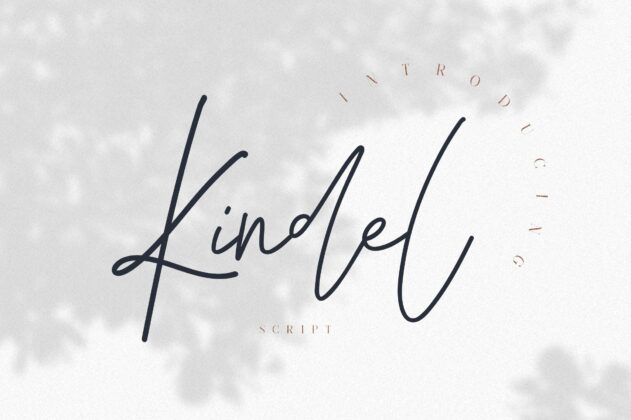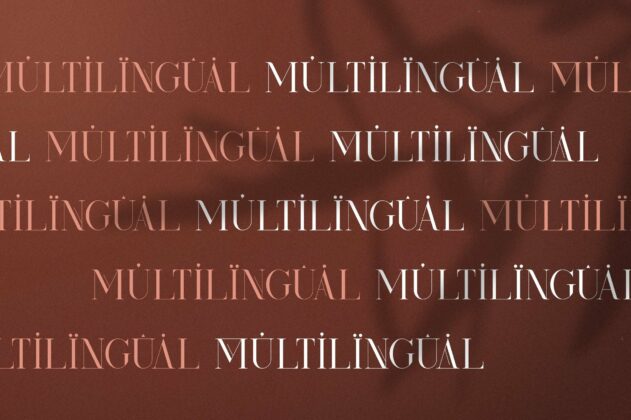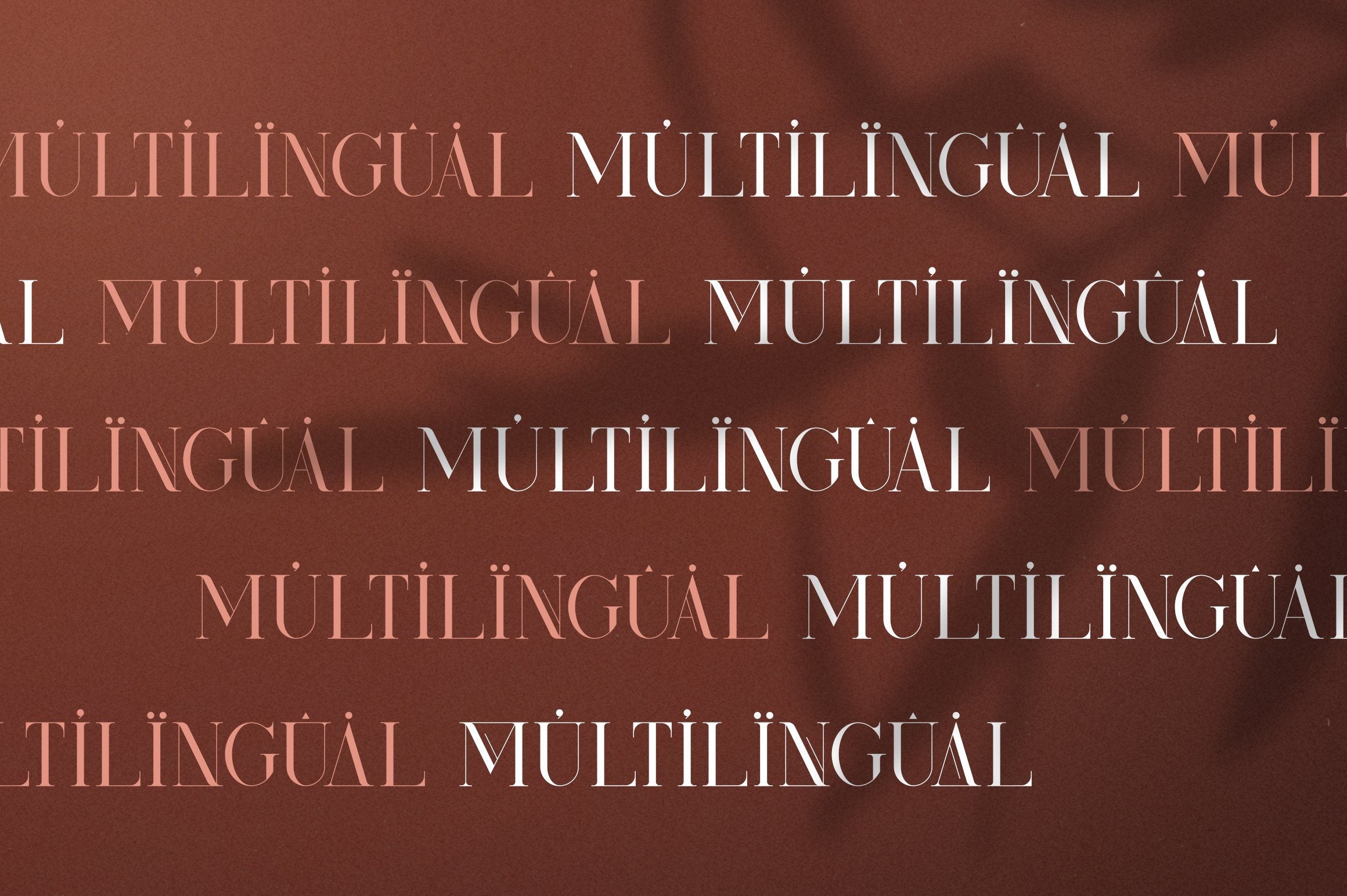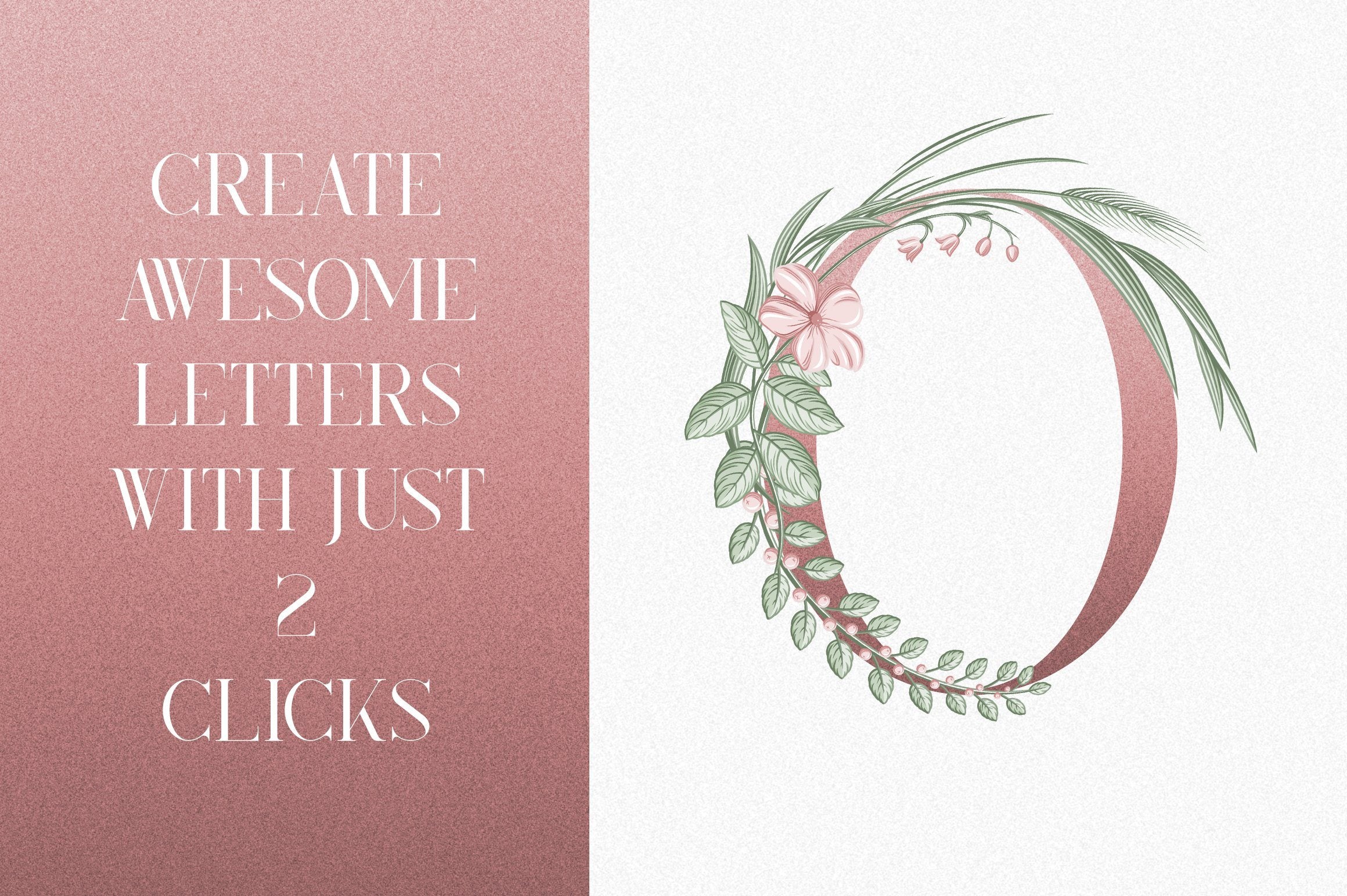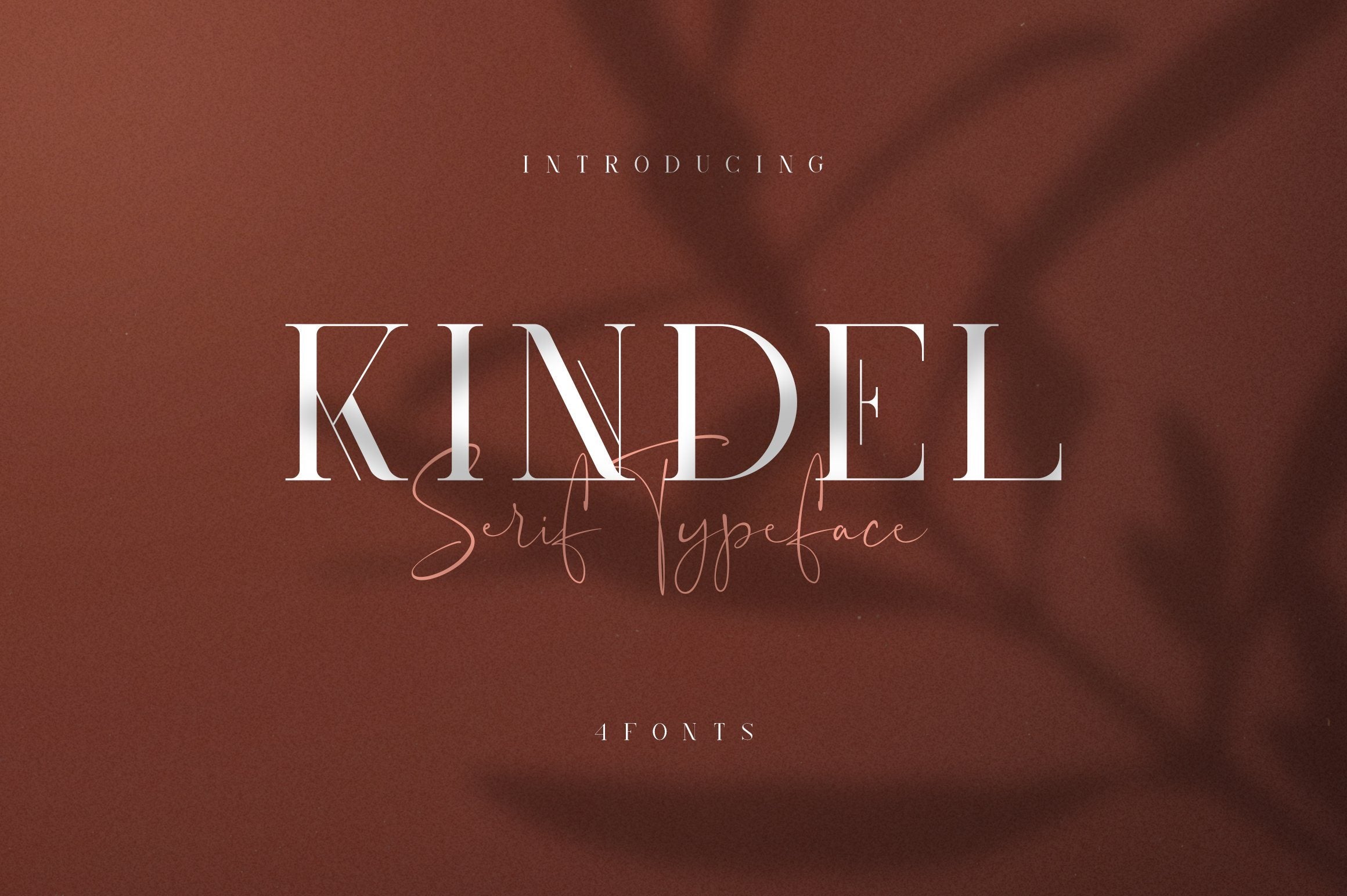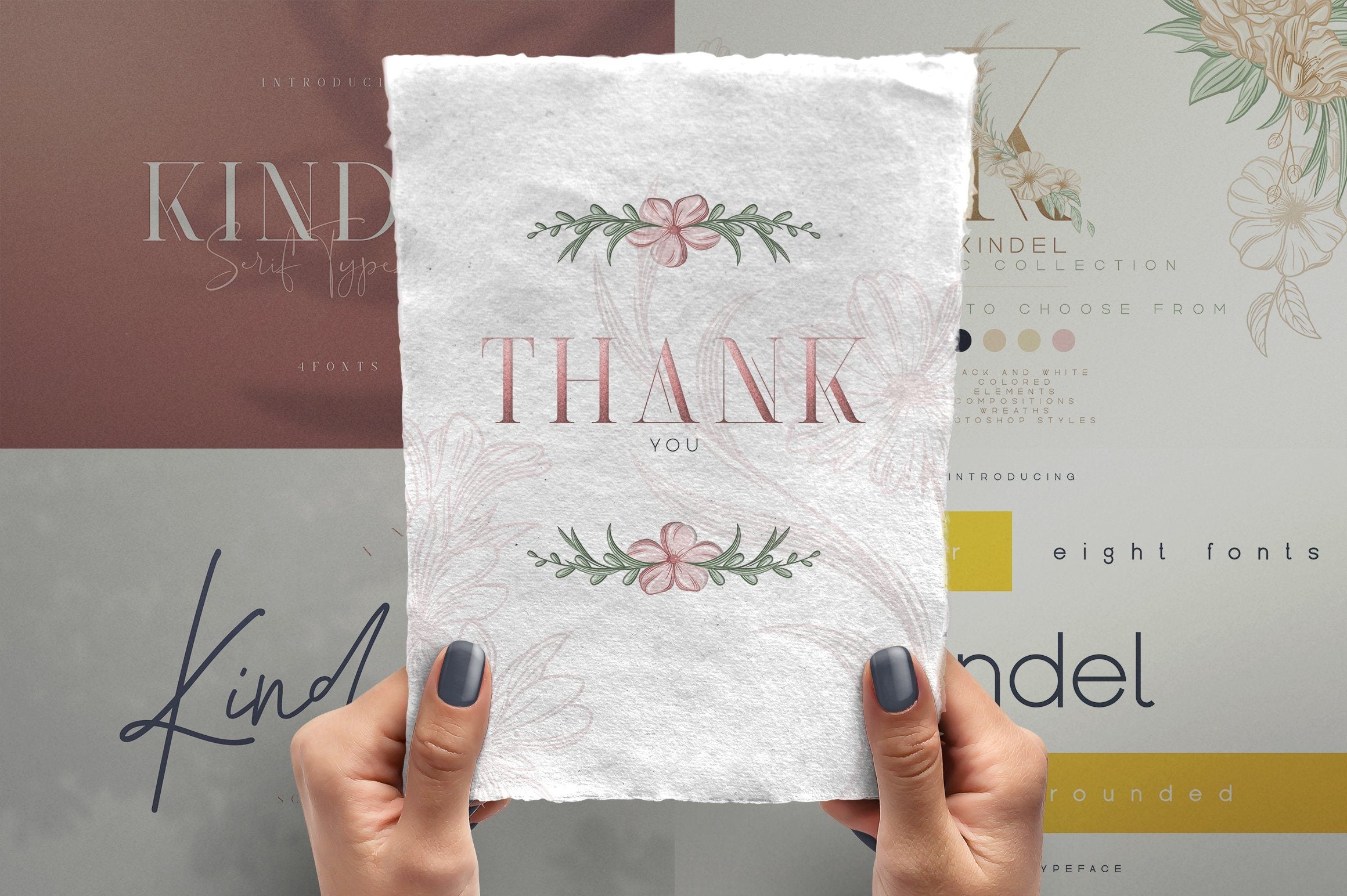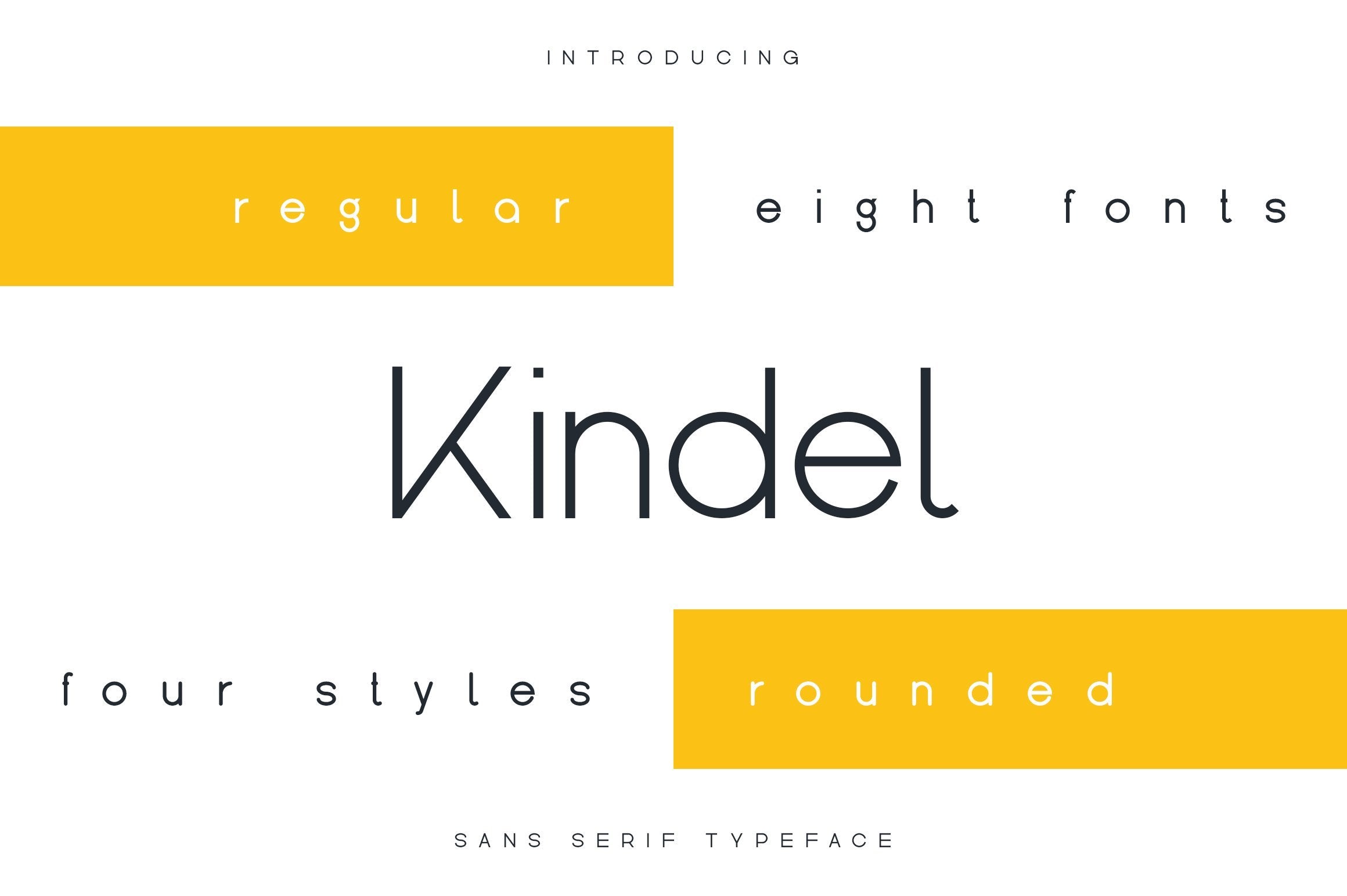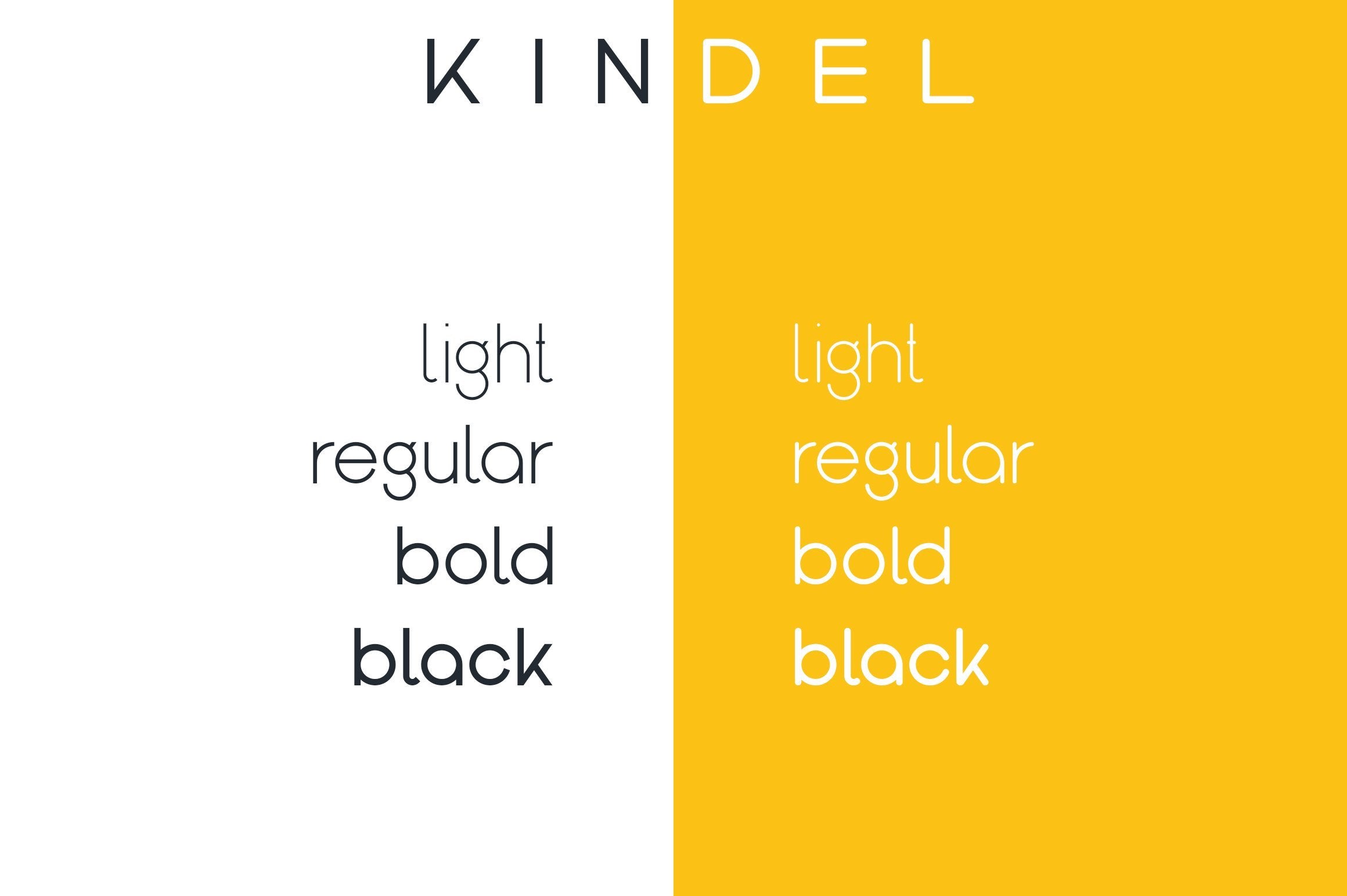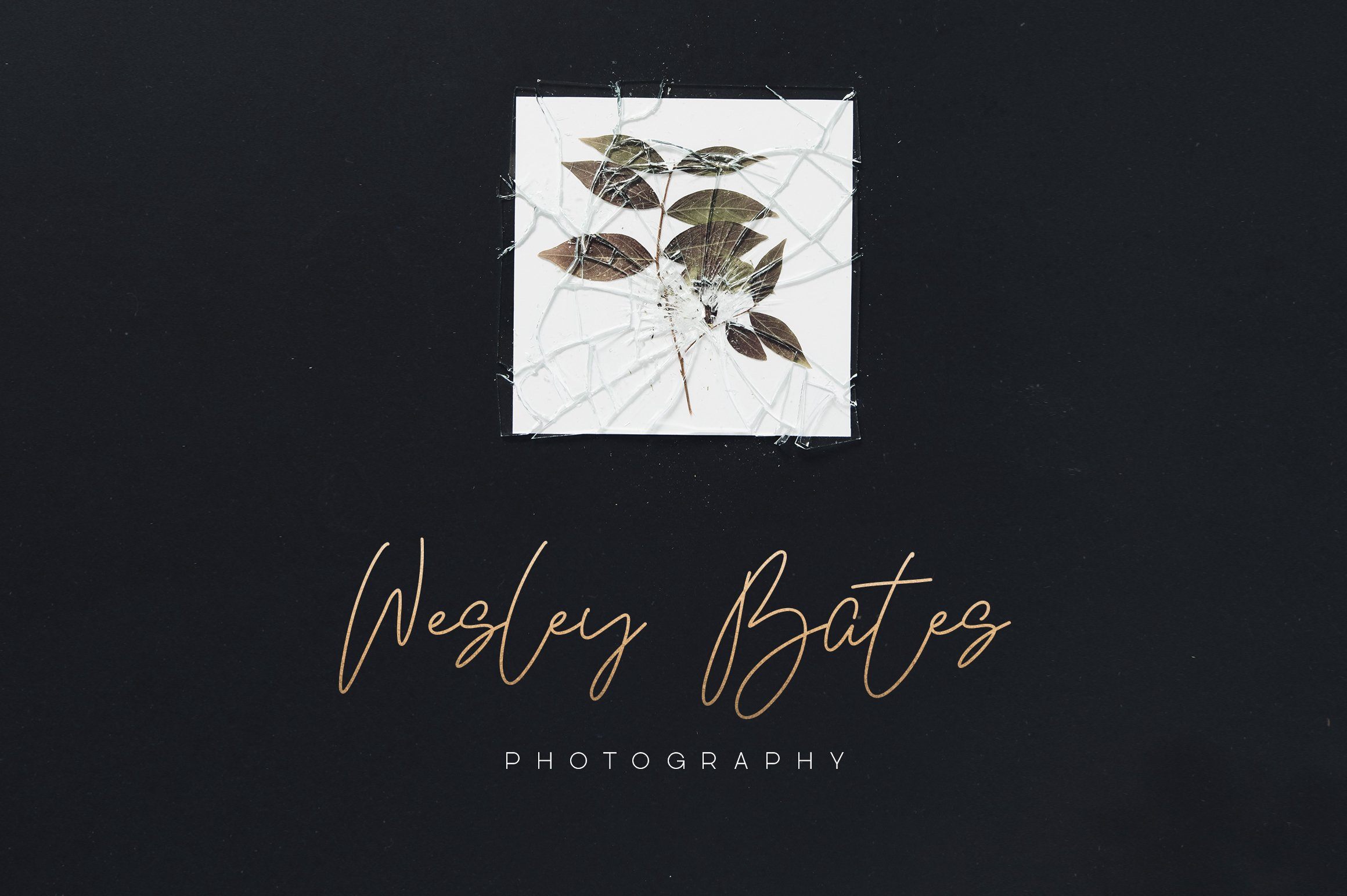
Introducing Kindel – completed edition In this collection you will find – Kindel – serif typeface Uppercase,lowercase, numeral,punctuation & Symbol Regular Style one Style two Style three Ligature glyphs Multilingual support Kindel – Graphic Collection 33 Black and white compositions 33 Gold with green compositions 33 Bronze with green compositions 33 Rose Gold with green compositions Files – Ai, EPS, separate PNG with transparent background for every composition 143 Elements ( Black and white, gold, bronze, rose gold ) Files – Ai, EPS, separate PNG with transparent background for every element 12 Photoshop styles Files – ASL Kindel script Uppercase,lowercase,numeral,punctuation & Symbol Multilingual Ligatures Kindel sans serif Uppercase,lowercase, numeral,punctuation & Symbol Light ( straight and rounded ) Regular ( straight and rounded ) Bold ( straight and rounded ) Black ( straight and rounded ) Multilingual support Feel free to contact me if you have any questions! Mock ups and backgrounds used are not included! Thank you! Enjoy!